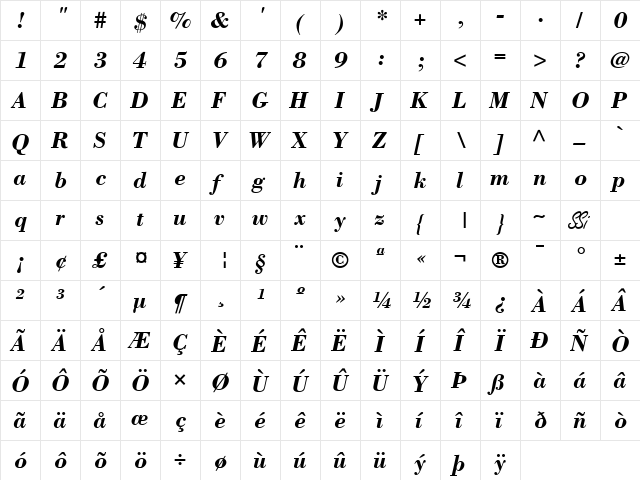
Bodoni SSi Bold Italic Font Preview
Design Context for Bodoni SSi Typeface
Bodoni SSi offers clean, dependable letterforms without strong stylistic allegiance, making it a practical choice for designers who need flexibility. The dynamic lean of this cut emphasises speed and emphasis in any layout. The heavy weight commands attention and anchors typographic hierarchies.
Pro Tip: Try Bodoni SSi for annotation and caption copy alongside an upright companion — the contrast in angle creates a dynamic but ordered typographic system.